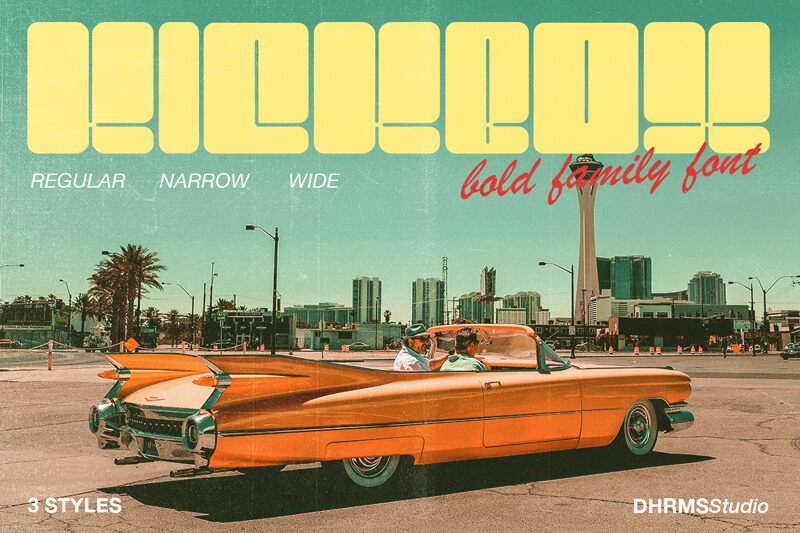
KickboxDEMO-Wide
Kickbox Wide is a groovy and retro display typeface designed by Dharmas Studio. With its extra-bold weight and expanded width, this font exudes a bold and energetic vibe that is perfect for projects that require a touch of nostalgia with a contemporary twist.
It is an ideal choice for designing eye-catching posters, album covers, logos, and vintage-themed websites. The wide letterforms add impact to headlines and titles, while the retro style brings back the spirit of the 70s.
Let Kickbox Wide transport your designs to an era of funky fun!